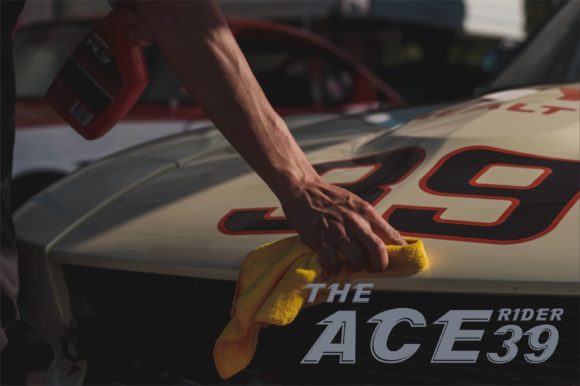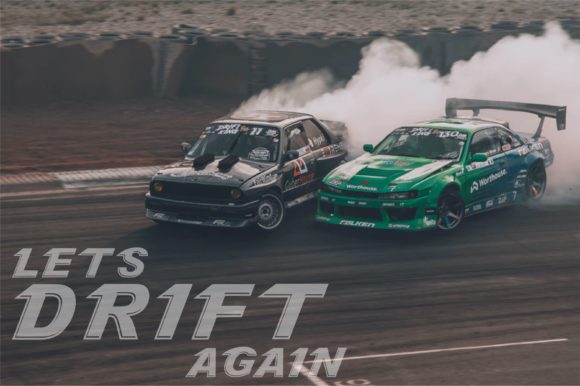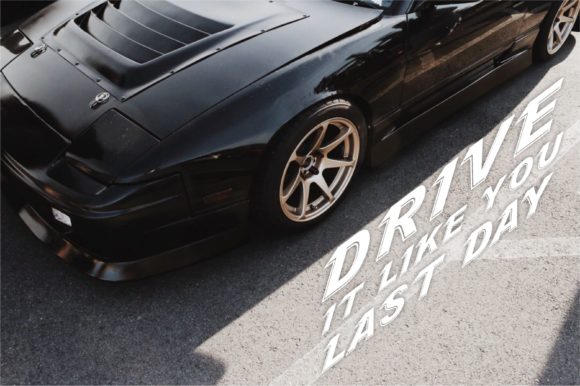
Unleash Your Creativity with Engkrak Font: The Ultimate Sporty Display Font
Are you tired of using the same old fonts in your design projects? Do you want to add an energetic vibe to your creations? Look no further than Engkrak Font, a sporty and dynamic display font that’s sure to inspire. In this article, we’ll dive into the unique charm of Engkrak Font and explore how it can elevate your designs to the next level.
What is Engkrak Font?
Engkrak Font is a display font designed to make a statement. Its sporty and dynamic style is perfect for designers and crafters looking to add a bold and energetic touch to their projects. Whether you’re working on a logo, poster, or social media graphic, Engkrak Font is sure to grab attention and leave a lasting impression.
The Unique Charm of Engkrak Font
So, what sets Engkrak Font apart from other display fonts on the market? For starters, its unique lettering style is inspired by the world of sports, making it perfect for projects that require a bold and dynamic look. The font’s sleek lines and athletic feel evoke a sense of movement and energy, making it ideal for designs that need to convey a sense of excitement and action.
Key Features of Engkrak Font
Here are just a few key features that make Engkrak Font a standout choice for designers and crafters:
- Sporty and dynamic design: Engkrak Font is designed to add an energetic vibe to your designs, making it perfect for projects that require a bold and attention-grabbing look.
- Unique lettering style: The font’s lettering style is inspired by the world of sports, giving it a distinctive and memorable look.
- Sleek lines and athletic feel: Engkrak Font’s sleek lines and athletic feel evoke a sense of movement and energy, making it perfect for designs that need to convey a sense of excitement and action.
- Multipurpose use: Engkrak Font can be used for a wide range of design projects, from logos and posters to social media graphics and more.
How to Use Engkrak Font in Your Designs
Ready to unleash the power of Engkrak Font in your designs? Here are a few tips to get you started:
- Use it as a headline font: Engkrak Font is perfect for headlines and titles, where its bold and attention-grabbing style can really shine.
- Pair it with complementary fonts: Try pairing Engkrak Font with complementary fonts to create a unique and visually appealing design.
- Experiment with colors and textures: Don’t be afraid to experiment with different colors and textures to really make your design pop.
Still looking for inspiration? Here are a few ideas to get you started:
- Logo design: Use Engkrak Font to create a bold and memorable logo for a sports brand or athletic wear company.
- Poster design: Create a eye-catching poster for a sporting event or fitness class using Engkrak Font.
- Social media graphics: Use Engkrak Font to create engaging social media graphics that showcase your brand’s personality and style.
In conclusion, Engkrak Font is a sporty and dynamic display font that’s sure to add an energetic vibe to any design project. With its unique charm, sleek lines, and athletic feel, it’s the perfect choice for designers and crafters looking to make a statement. So why wait? Get inspired by Engkrak Font today and take your designs to the next level!